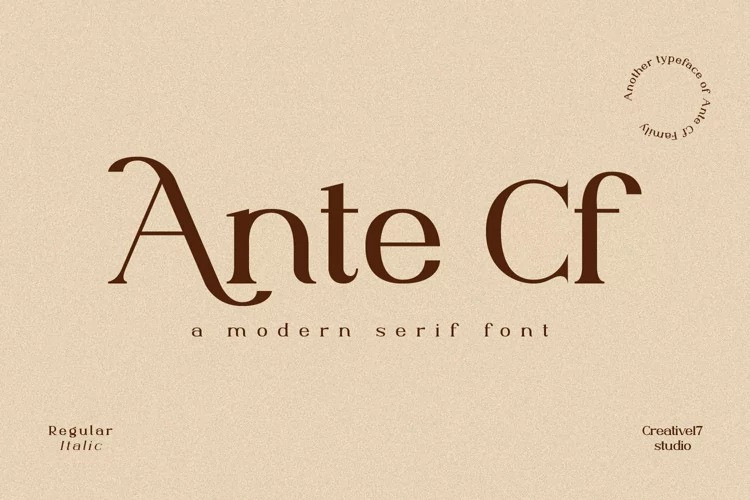
Ante Cf Font
Ante Cf Serif Font
It’s a fancy modern vintage serif typeface with beautiful ligatures, the special of alternative glyphs, and multilingual support. Made from font designer named Irfan Hidayat. It’s a very versatile font in a variety of designs you want. It is also suitable to be paired with Script / Handwritten / Minimalist Sans Serif Fonts for your project.
With Ante Cf Serif which has a large selection of alternative letters and ligatures, combined with Ante Cf Sans which has a lot of weight, makes all your design projects seem complete and perfect, whether it’s for tagline, branding, editorial, magazine titles, poster design, logotypes, wedding invitations and other creative design projects.